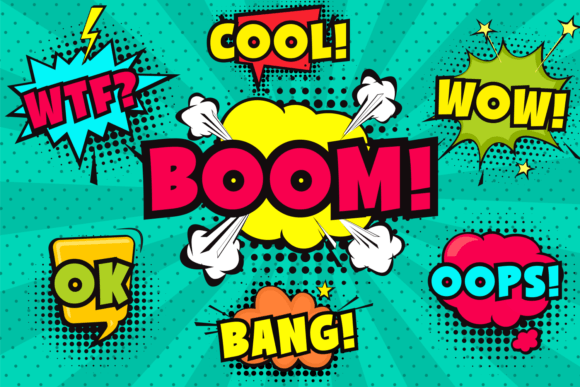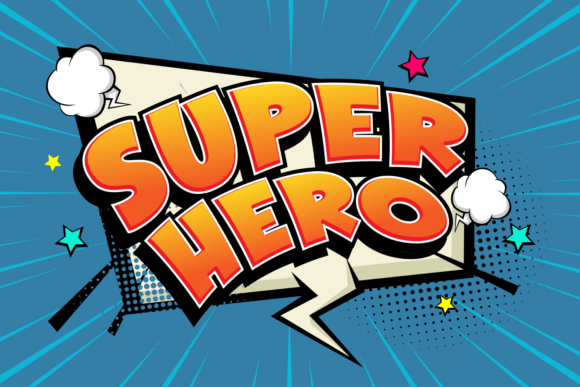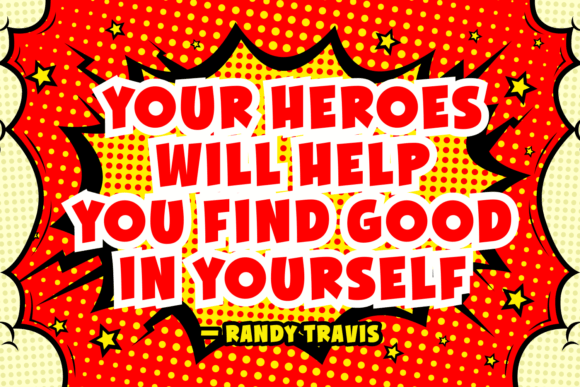
Introduction to Like Comic Font
Like Comic is a marvelous cartoon-style display font.
Cheerful and bubbly, this thick-lettered typeface is the perfect choice for projects that need bold and striking typography Give it a try in your next creative project.
Key Features of Like Comic Font
Why Choose Like Comic Font?
Like Comic Font offers exceptional quality and versatility, making it a valuable addition to your design toolkit. Whether you’re creating for personal projects or commercial use, Like Comic Font delivers professional results.